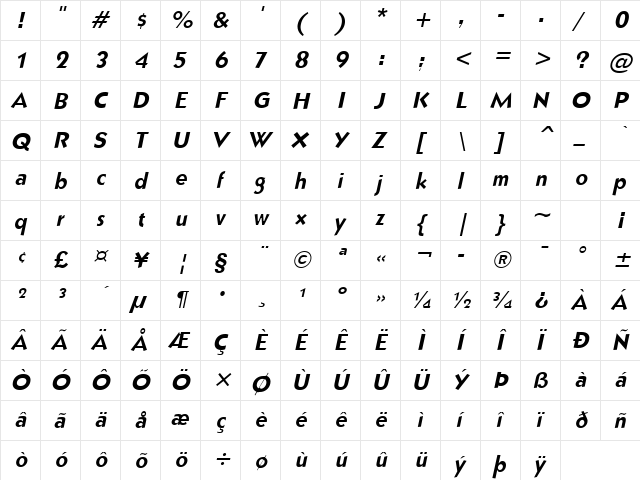
Bully Narrow Italic
Design Context for Bully Narrow Typeface
Bully Narrow is a composed and adaptable typeface that performs quietly and consistently across a wide range of design contexts. The slanted form adds forward momentum and visual energy. Its narrow stance lets it pack a punch even in space-constrained designs.
Pro Tip: Try Bully Narrow for annotation and caption copy alongside an upright companion — the contrast in angle creates a dynamic but ordered typographic system.